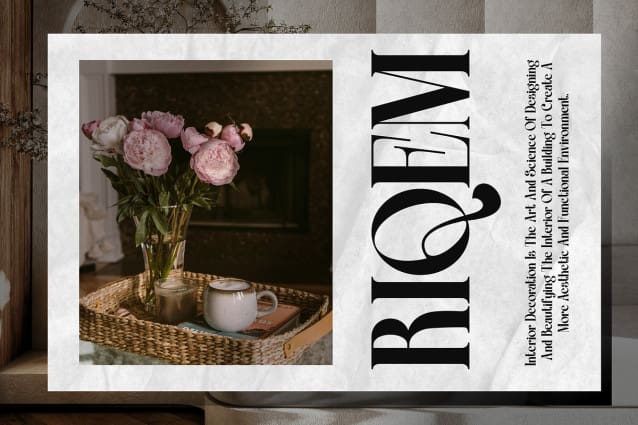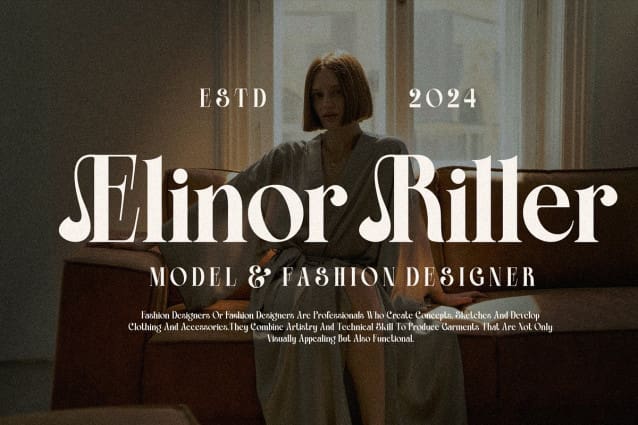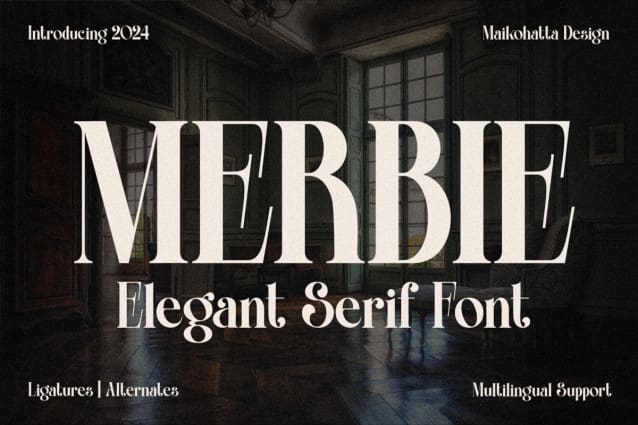
Merbie Font
Merbie Font is a typeface with distinctive features that create an impression of luxury, elegance and solidity. This font includes a variety of design elements such as balanced thin and thick lines, gentle curves and clean, elegant serifs. The sharp corners and subtle details of each character create a high aesthetic impression and exude elegance.